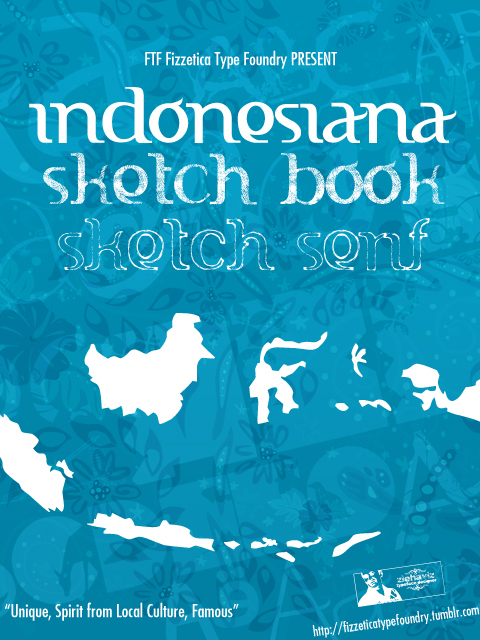
FTF Indonesiana Sketch Serif by Abdul Hafiz Hilman of Fizz-Labz Inc. and Fizzetica TypeFoundry DepokAsiana is a free Indonesian display font with tall outlined letters and an intentionally rough finish. Narrow shapes, flared serifs, and broken contours suggest hand-cut lettering.
It is strongest on music posters, where the wiry outlines and distressed edges can evoke folk history or dark fantasy themes. Those traits also suit festival branding, album packaging, and illustrated game graphics, linking each use through weathered ornament.